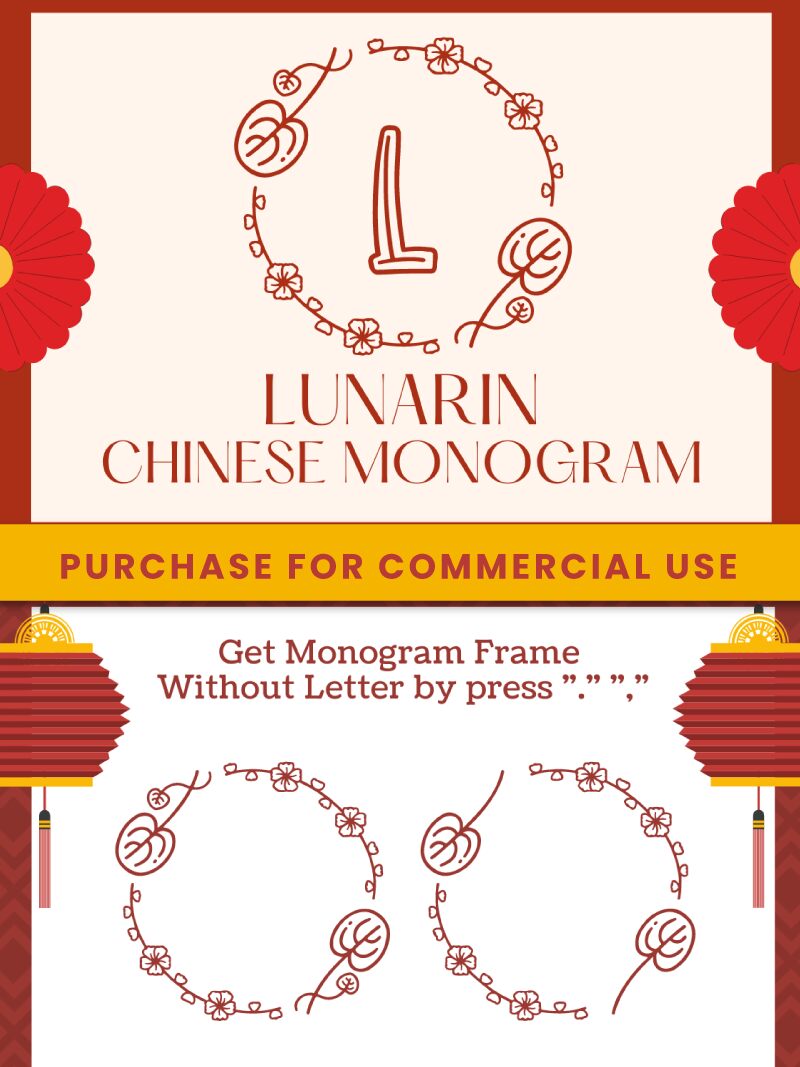
Lunarin Chinese Monogram
Lunarin Chinese Monogram emerges as a bold statement in the realm of typography, masterfully crafted by Attype Studio. This display font is not just about letters; it's a decorative tapestry that weaves traditional Chinese calligraphy with contemporary flair, creating an audacious and engaging visual experience. Its robust weight commands attention, making it an ideal choice for headlines, branding efforts, and artistic endeavors that demand a touch of opulence and character.
The aesthetic appeal of Lunarin Chinese Monogram lies in its ability to balance intricacy with readability—a challenge deftly met by its designers. The font's ornate details are sure to captivate audiences across various mediums, from print to digital canvases. Whether used in thematic designs or as a standalone showpiece, this typeface is poised to leave an indelible mark on any creative project seeking distinction and elegance.